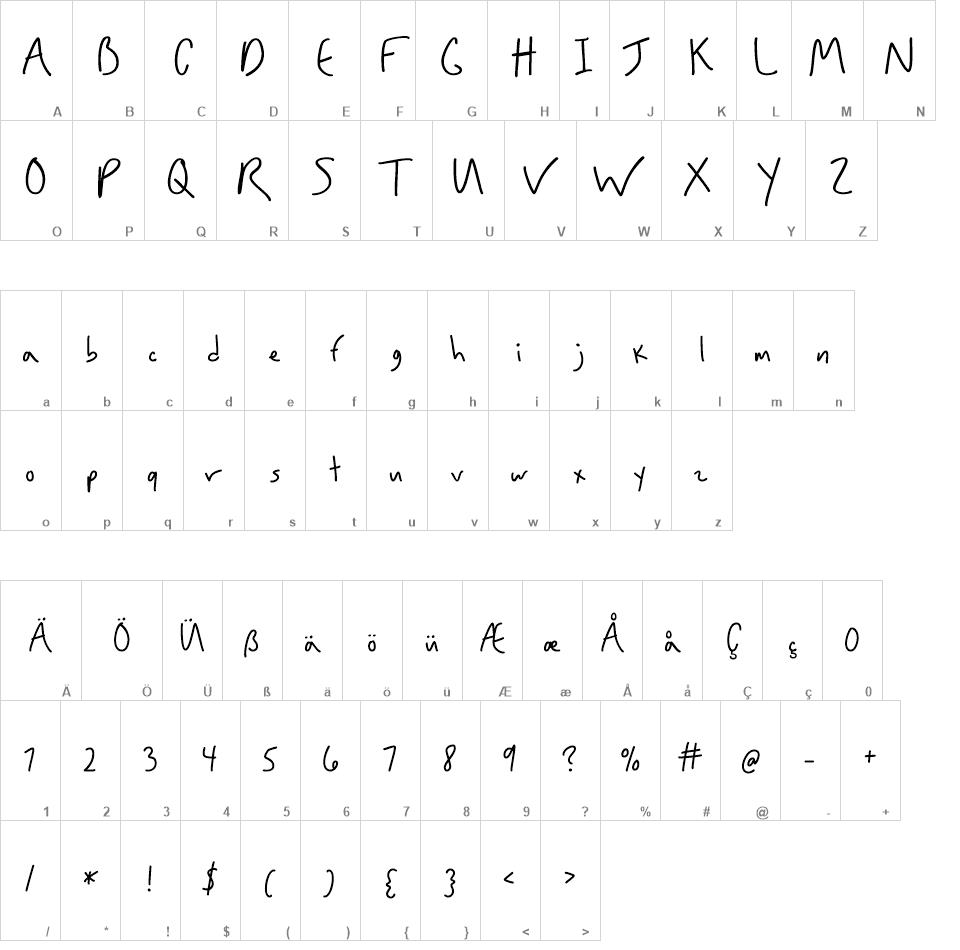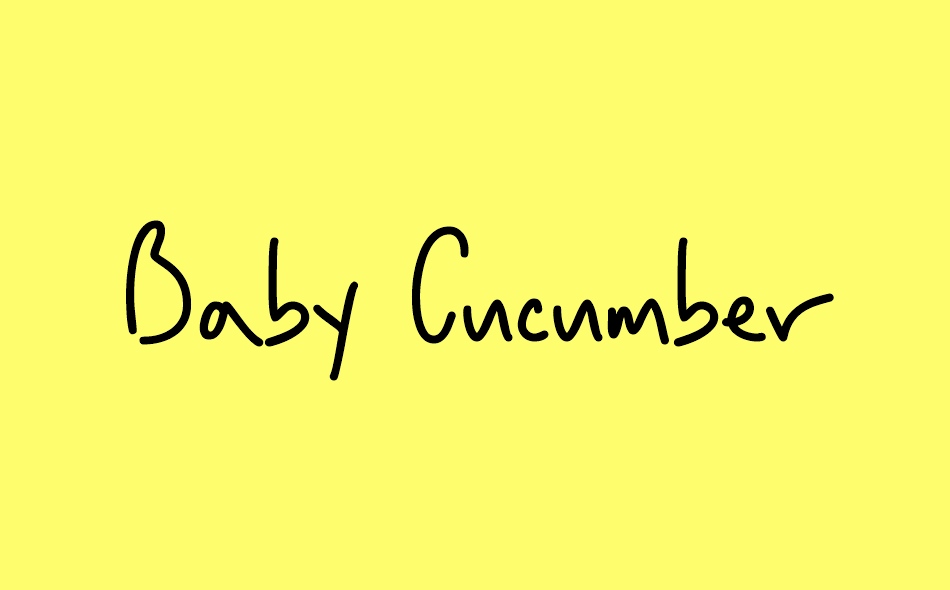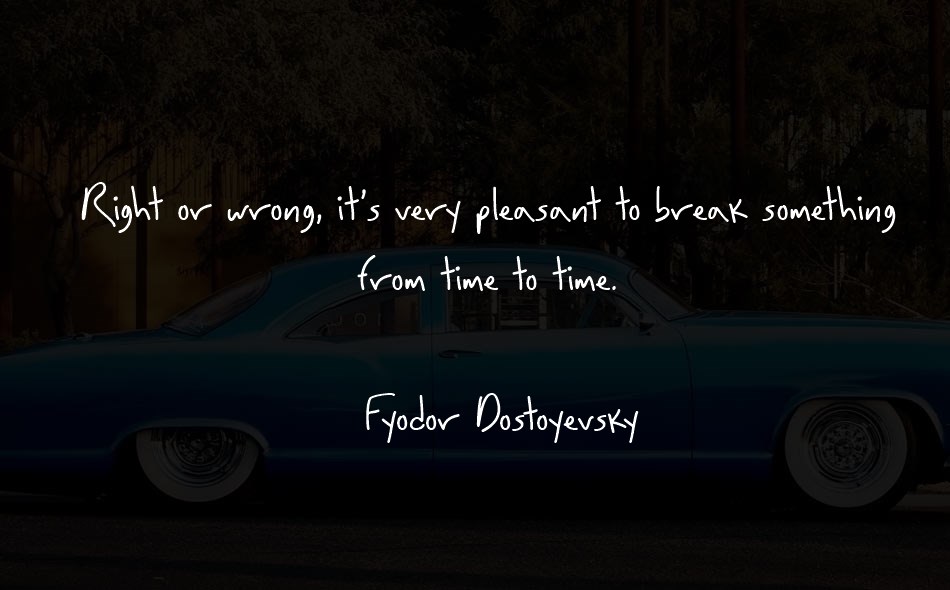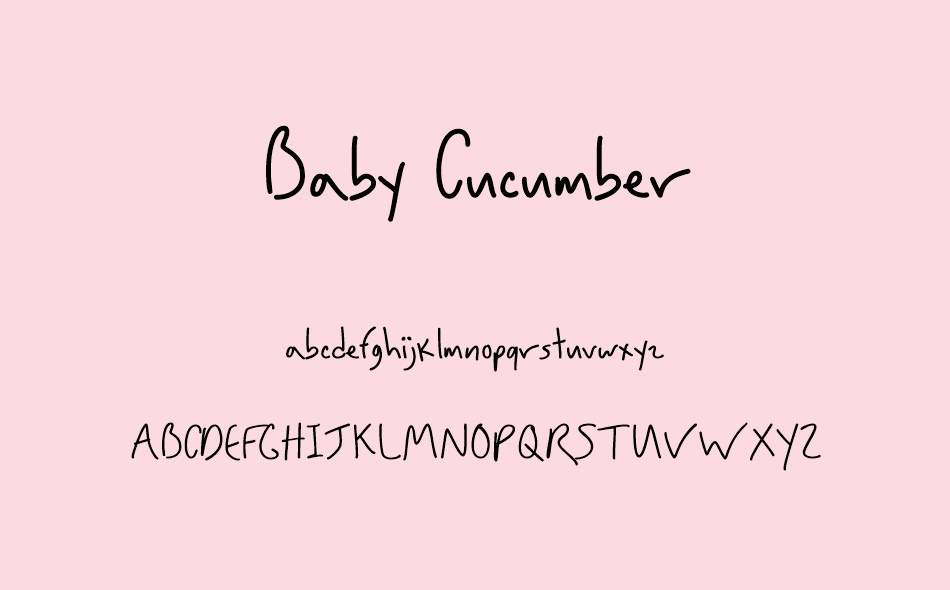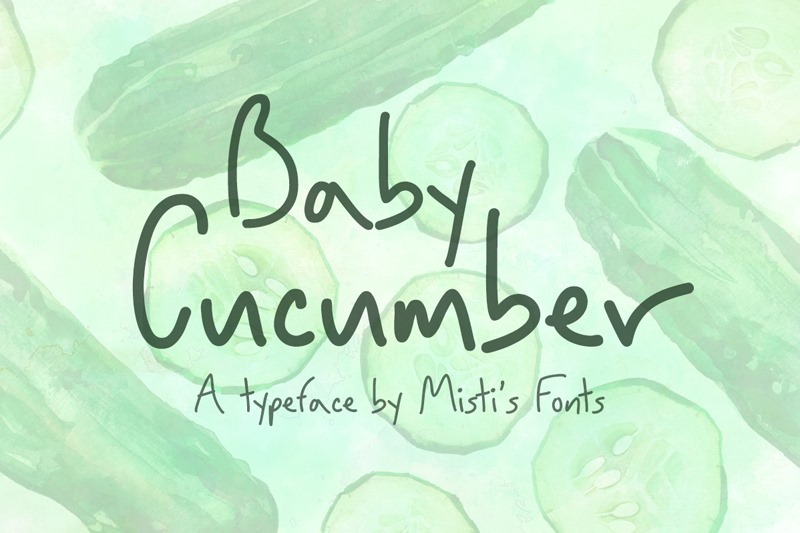
Baby Cucumber font
Baby Cucumber is a quirky and casual handwritten font. It will look great on blog post graphics, shop logos and on product labels. Its whimsical style makes it ideal for creating cute greeting cards and personalized items, as well as cartoon or comic-themed projects.